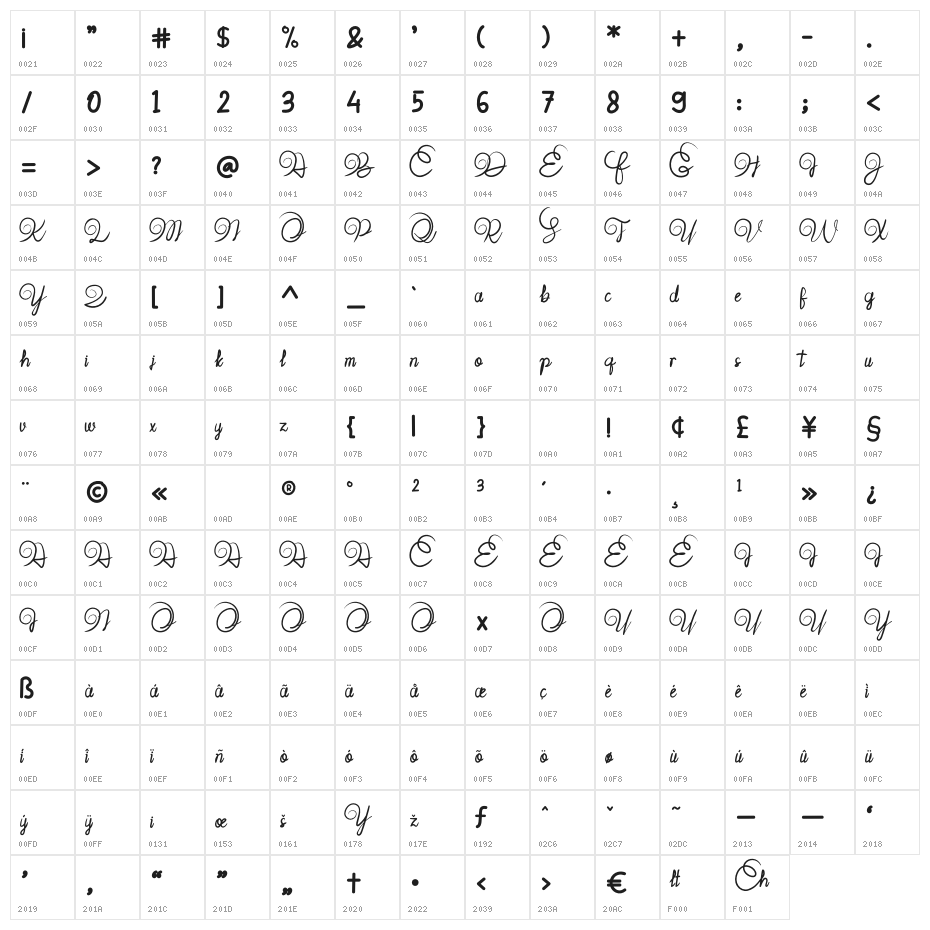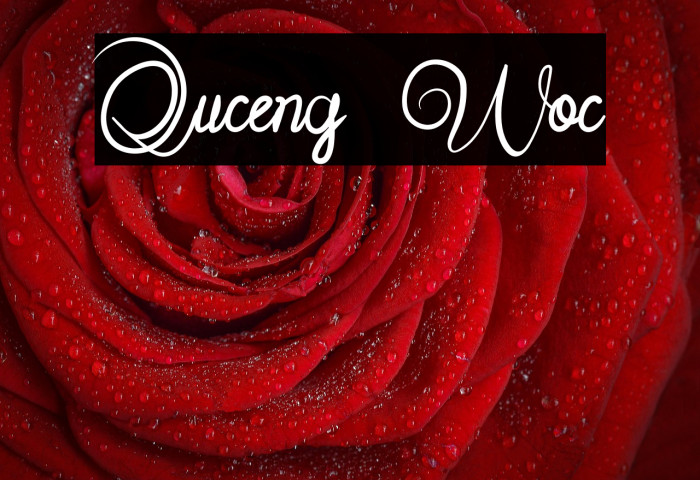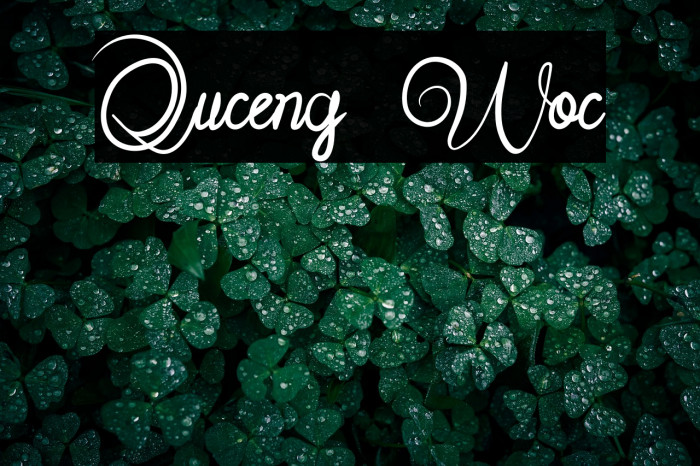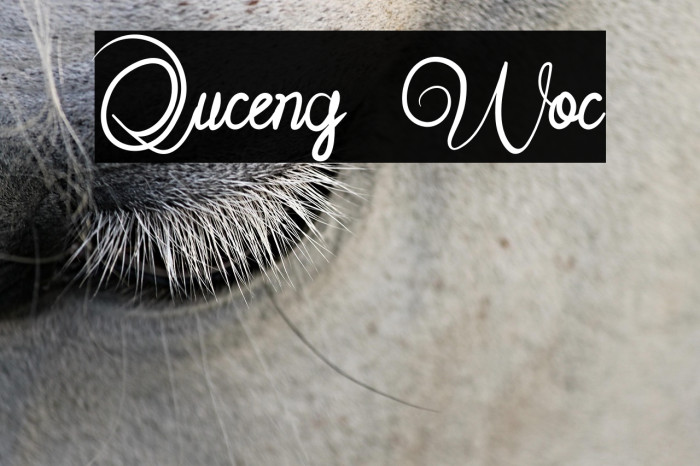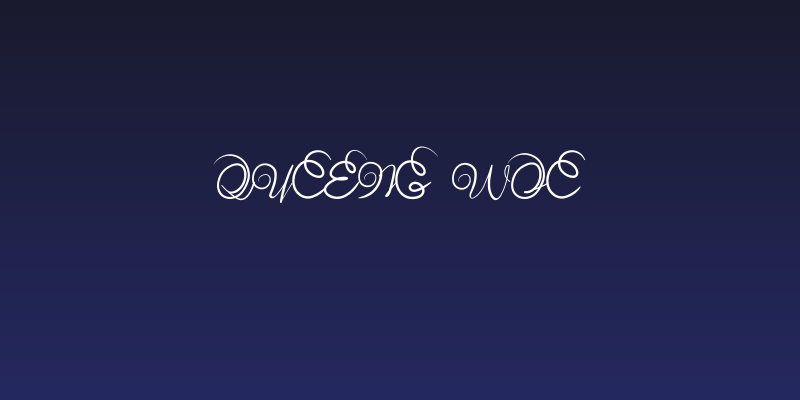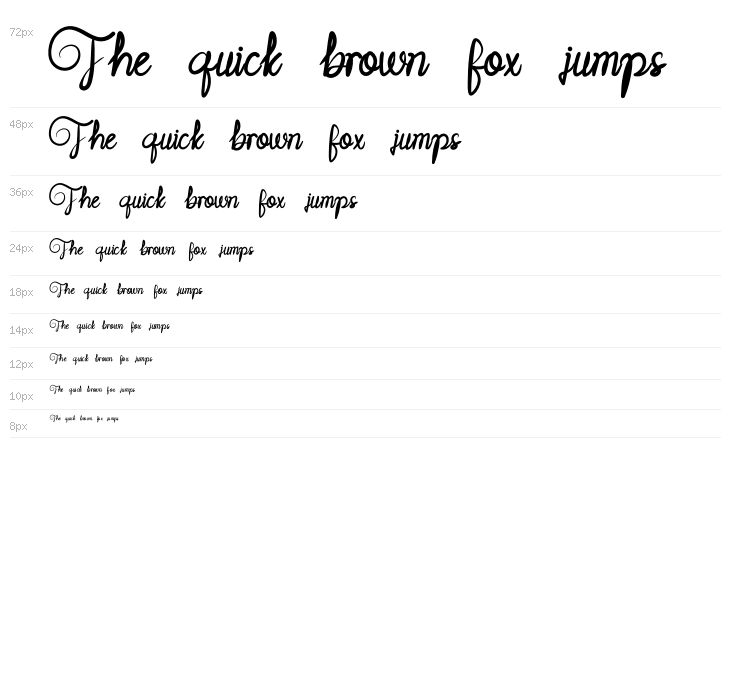
Quceng Woc Font
Quceng Woc Description
This font features a playful and whimsical script style, characterized by its flowing, interconnected letters. The uppercase letters exhibit a unique looping design, adding a sense of elegance and creativity. The lowercase letters maintain a consistent cursive style, enhancing readability while retaining a charming aesthetic. The numerals are bold and slightly rounded, complementing the overall script theme. Special characters are designed with the same fluidity, ensuring a cohesive look across all text elements. This font is ideal for projects that require a touch of personality and flair.